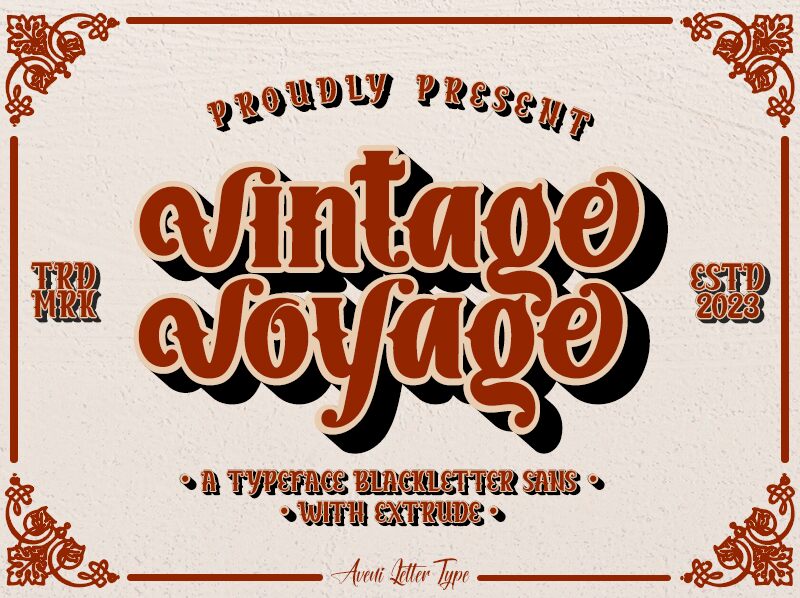
Vintage Voyage
Vintage Voyage font is a nostalgic creation by Aveni Letter Type, inspired by the elegance of bygone eras. Its ornate retro appeal and Victorian influence make this display font an authentic representation of the past. Perfectly balanced between sophistication and originality, it creates an enchanting, intricate visual that stands out.